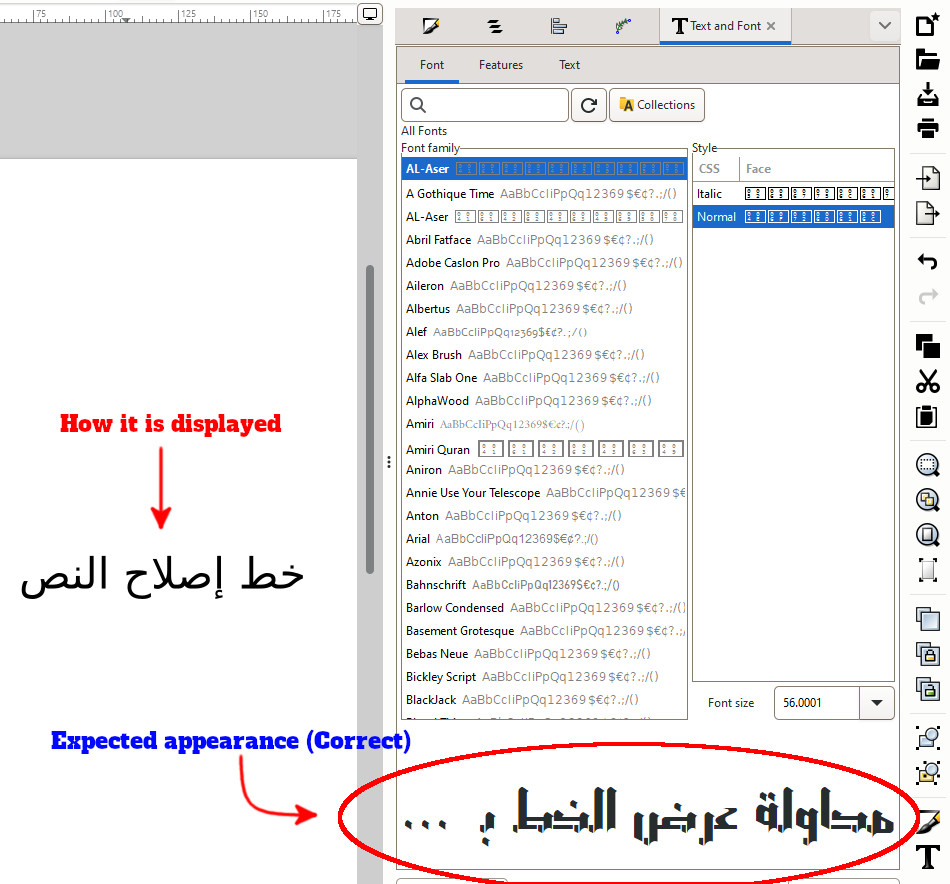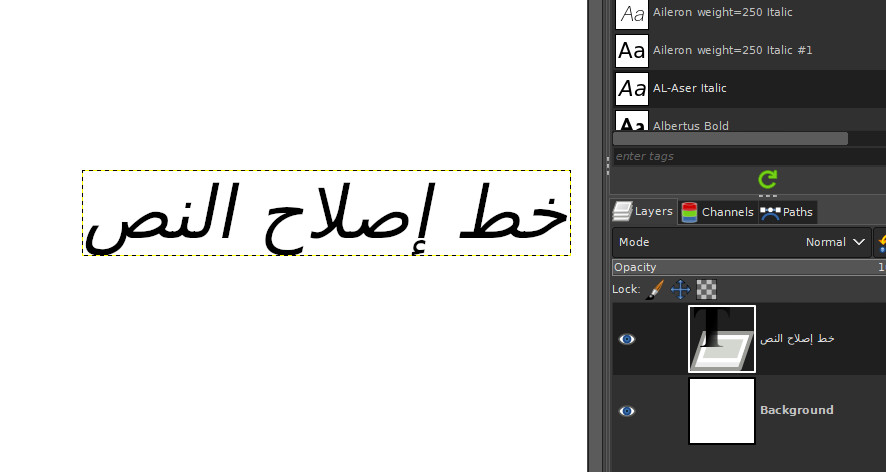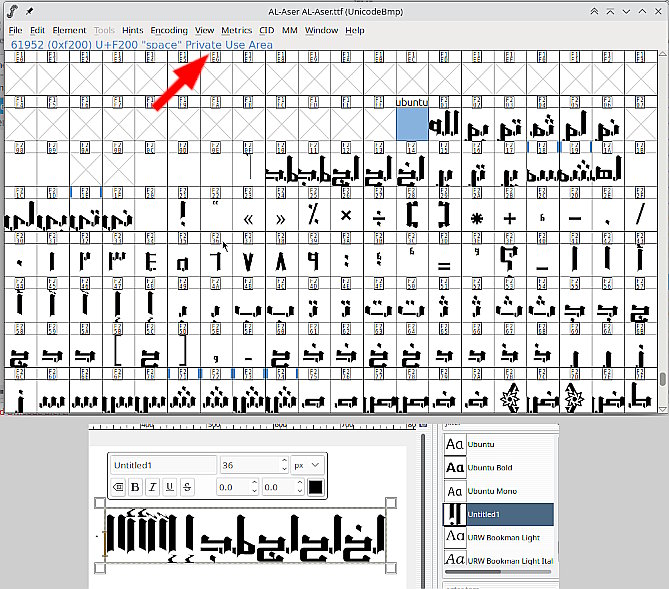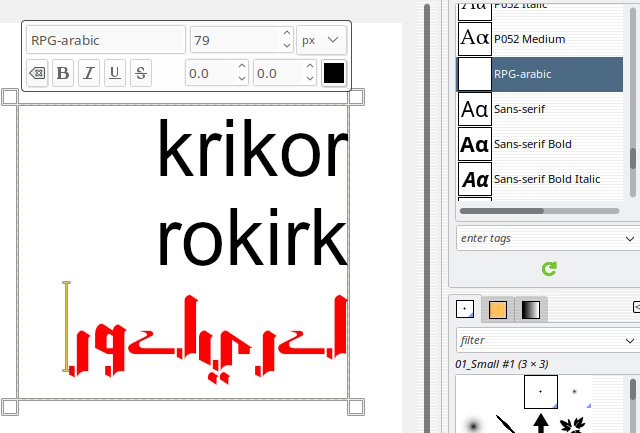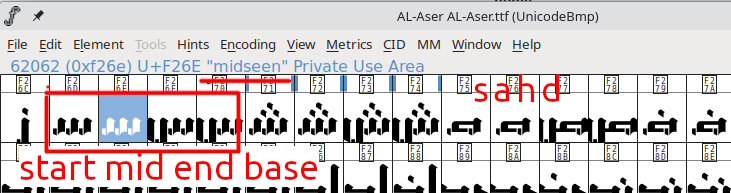
Font not displayed correctly
I'm trying to find a solution to the following problem:
I want to use the *Al-Aser.ttf font, however, both GIMP and Inkscape do not display the font as intended.
Only Libre Office seems to display this font correctly.
However, in Inkscape, when the font is viewed in the Text and Font window, it displays correctly, although it continues to be written on the page in an undesirable way.
I remember having seen this type of problem before and if I remember correctly, the solution was found at the time. However, I can't remember where this issue was discussed and solved before, much less what the solution was at the time.
Does anyone know how to unravel this situation and guide me on how to make the font type as expected?
Even worse In my Gimp, it displays as latin characters Wink
Looking at it in fontforge, those characters are in the "Private" area.
A very quick fix (because I am well overdue to pack in for the night) is a copy/paste into a new blank font. (attached, zipped)  Unfortunately I did not get round to filling all the name fields so it shows as Untitled1 which might do until tomorrow.
Now that I have installed your version of this font (al-aser-mod / Untitled1), I am not sure how to use this font.
I am starting to think (assume) that I should have the keyboard working in Arabic, but I am not sure.
I will do some more research and try to understand the situation.
(09-19-2024, 12:50 AM)Krikor Wrote: ......I am starting to think (assume) that I should have the keyboard working in Arabic, but I am not sure.
I will do some more research and try to understand the situation.
You are probably correct about the keyboard. I do not know how useful that font will be. Arabic is a phonetic not easy to learn. Right to left except for numbers which are the same position units - tens - hundreds from the right. 1234 is still 1234
I thought that writing in Latin characters using this font would produce a text that looked like Arabic text.
The result left a lot to be desired.
However, it is useful in RPG games as a message to be deciphered.
What is initially an eligible text, when copied and pasted becomes an immediately readable text.
I'm going to talk to a master of an RPG group and suggest this to him. I think he'll like the idea.
rich2005, a big thx!
To add to the mix, there are different forms depending on position in the word. None of these I have taken into account.  Missing an "i" not uncommon I used to work here: Abqaiq (Arabic: بقيق, romanized: Biqayq) also Buqayq try a "y"
That font looks very "classical", the sort of thing from old documents, different from modern written arabic.
In English you can generally scramble the message and still be understandable, not always true for other languages.